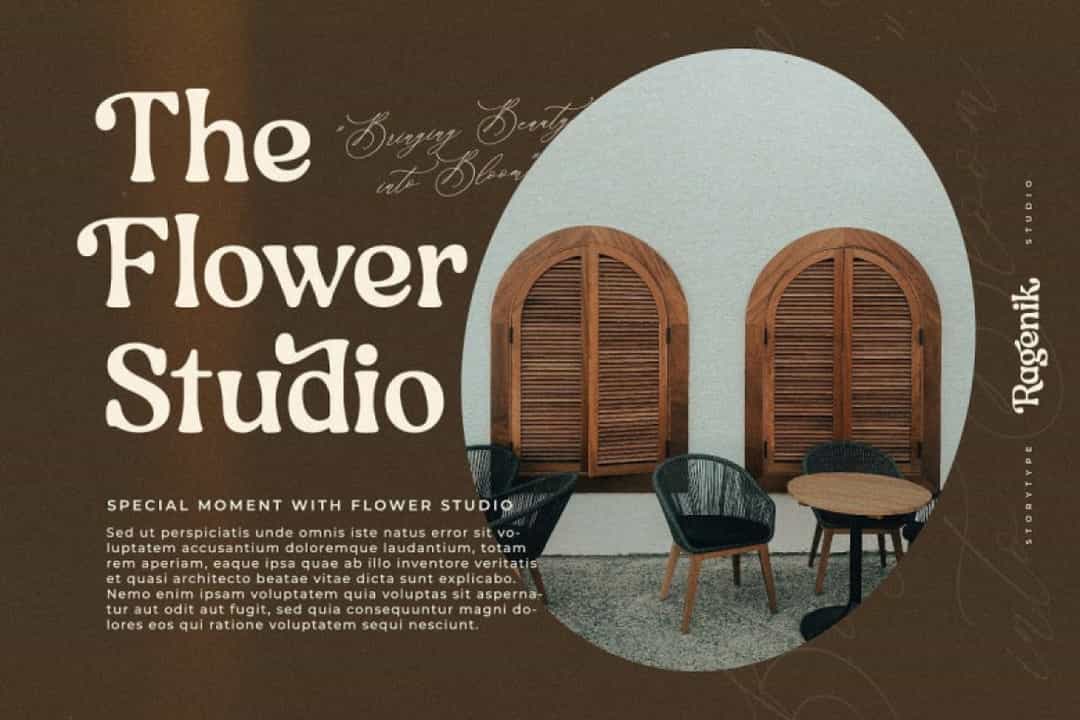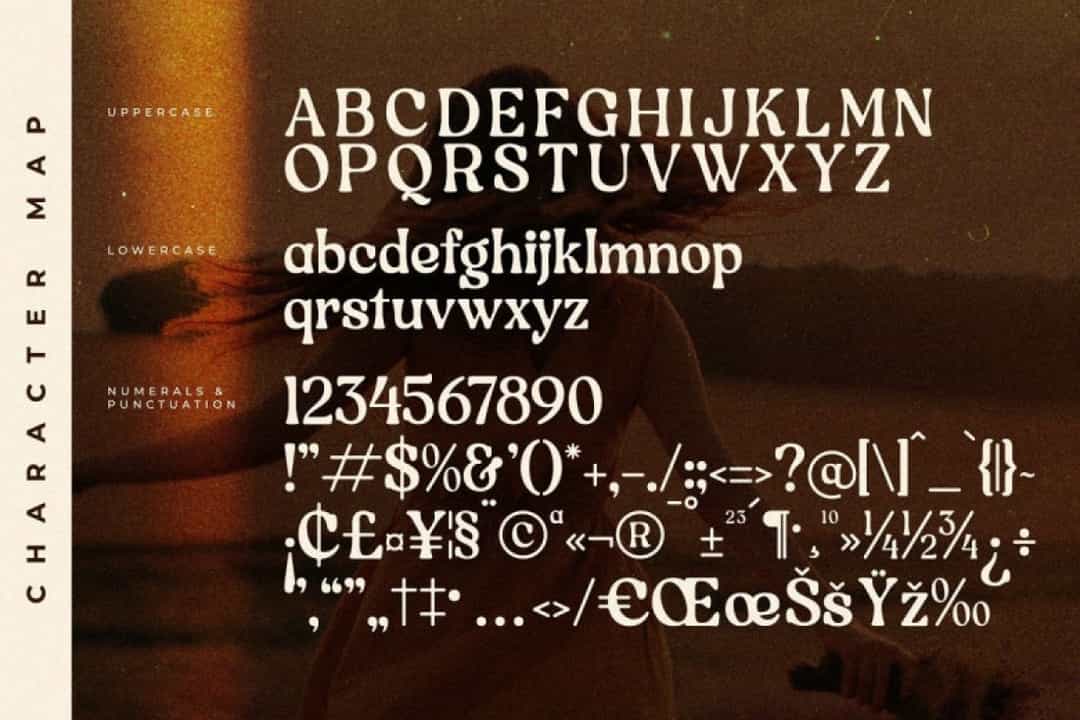
Ragenik Typeface was designed by Storytype as a classic yet modern Retro serif font with its own distinct style and modern appearance, perfect for creating classy logos, book titles, film titles, fashion brands clothing magazines letters quotes or anything else in need of typographic goodness.